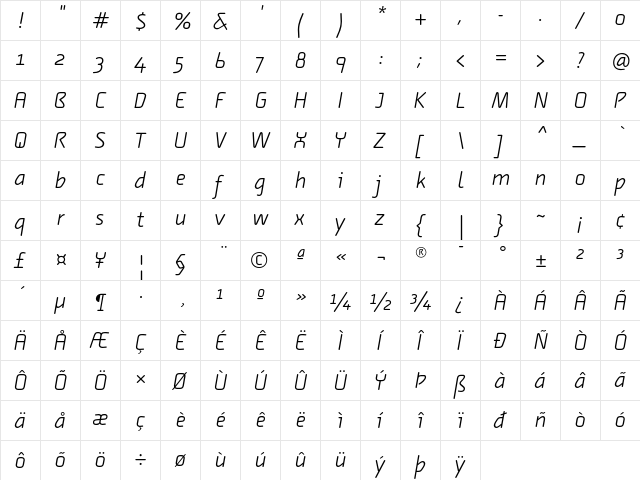
Alega-LightItalic Regular Font Preview
| Foundry | Siegfried Rueckel, published by FontShop International for the FontFont library |
Design Context for Alega-LightItalic Typeface
Alega-LightItalic is a composed and adaptable typeface that performs quietly and consistently across a wide range of design contexts. Its italic angle brings a sense of urgency and motion to the letterforms. Its slender proportions lend an understated elegance to any composition.
Pro Tip: Try Alega-LightItalic for annotation and caption copy alongside an upright companion — the contrast in angle creates a dynamic but ordered typographic system.